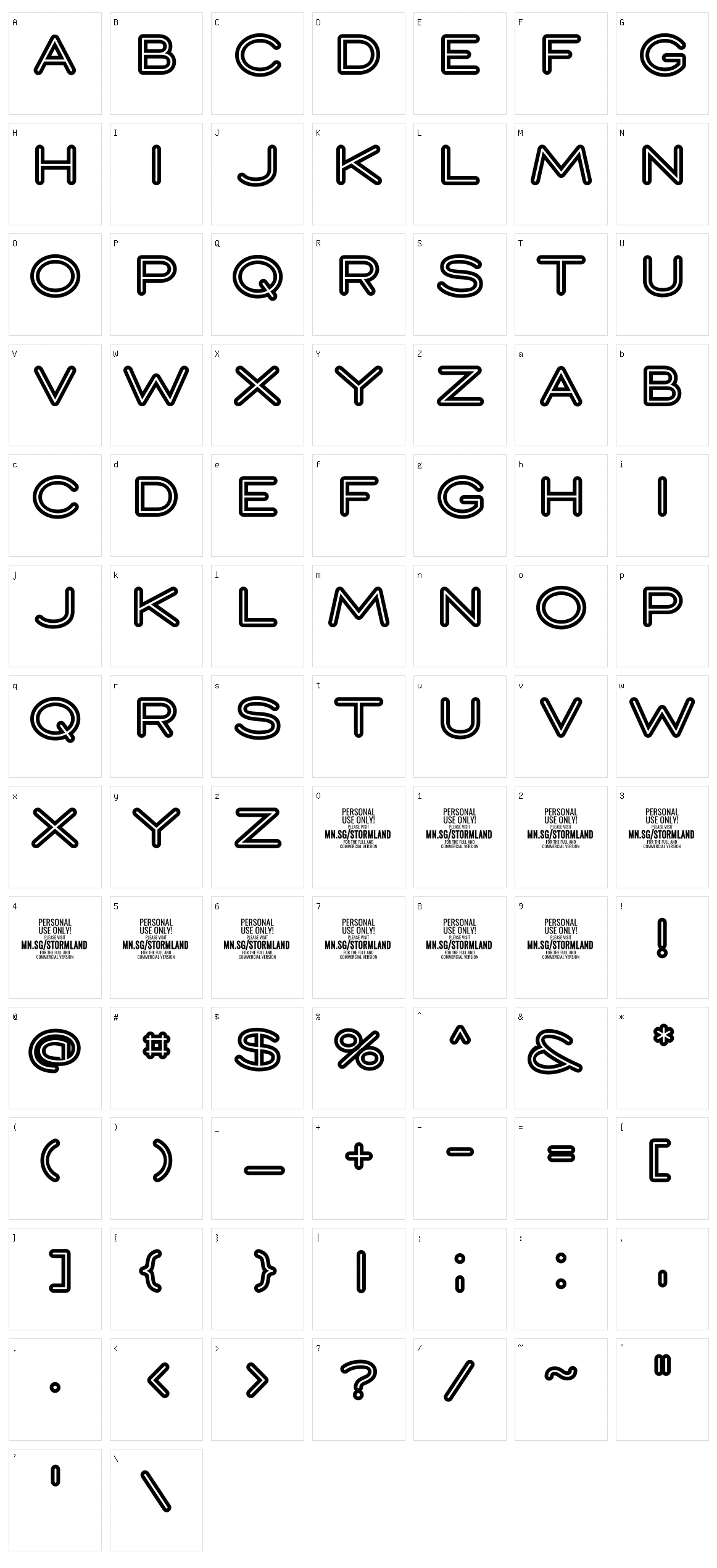
Stormline is a sleek inlined typeface, drawn and created by Mans Greback in 2021.
Its wide, carved out letterforms works with decorative minimalism, and retains the purity of a clean sans-serif typeface while being modern and original.
Stormline is provided in three distinct weights: Medium, Bold and Black.
The font is built with advanced OpenType functionality and has a guaranteed top-notch quality, containing stylistic and contextual alternates, ligatures and more features; all to give you full control and customizability.
It has extensive lingual support, covering all Latin-based languages, from Nordic to South Africa, from America to South-East Asia.
It contains all characters and symbols you'll ever need, including all punctuation and numbers.